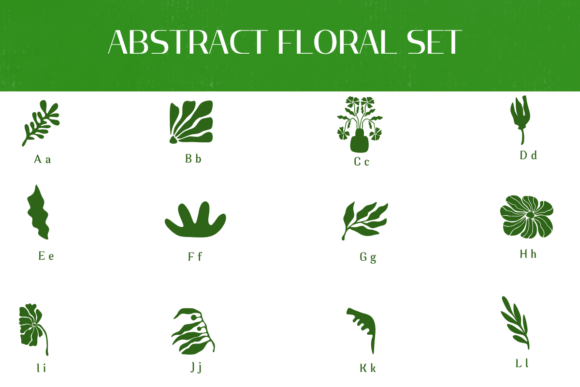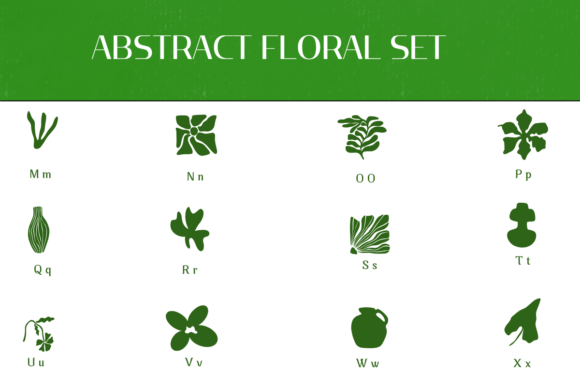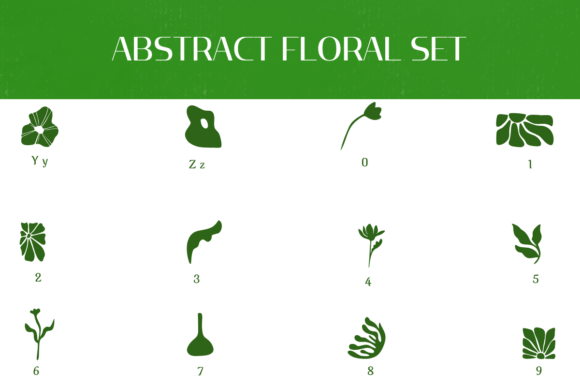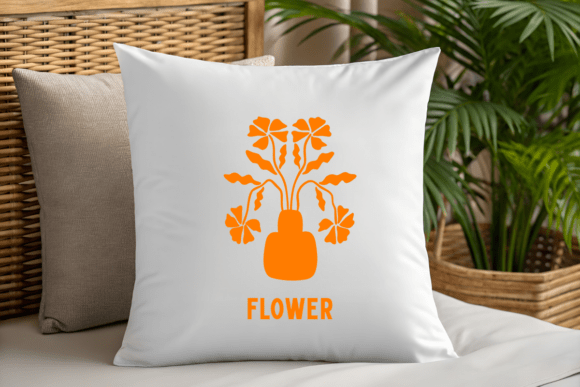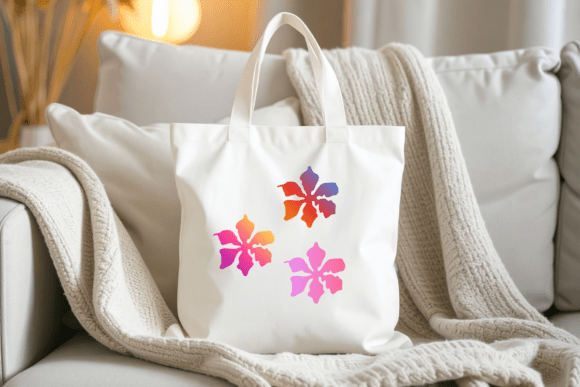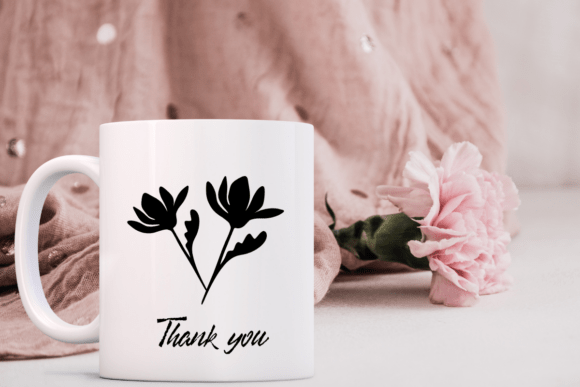
Introduction to Abstract Floral Set Font
Abstract Floral Set: Dingbats Font Transform your layouts into vibrant works of art with the Abstract Floral Set.
This unique dingbats font bypasses the alphabet to provide a curated collection of organic, fluid floral silhouettes From Matisse-inspired leaves to psychedelic 70s blooms, each glyph functions as a high-definition vector asset.
Key Features of Abstract Floral Set Font
Why Choose Abstract Floral Set Font?
Abstract Floral Set Font offers exceptional quality and versatility, making it a valuable addition to your design toolkit. Whether you’re creating for personal projects or commercial use, Abstract Floral Set Font delivers professional results.